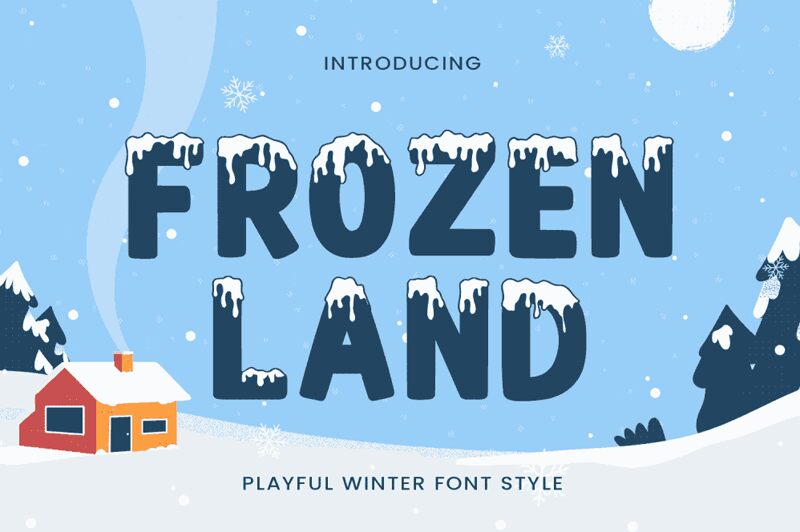
FROZENLAND Regular
Frozenland font by Mozatype is a free decorative display typeface that looks like it’s been carved from black ice and capped with thick, melting snow. Each letter is bold, rounded, and topped with drippy, irregular frost, giving your titles a chilly, cartoonish energy that feels straight out of a winter carnival or cozy holiday special. The forms are compact and hefty, so even a single word reads like a logo.
Using Frozenland, your winter event posters, Christmas cards, kids’ party invites, seasonal product packaging, game titles, and YouTube thumbnails instantly feel colder and more playful. This free font thrives at large sizes where the snowy detail can really shine; pair it with a simple sans serif for supporting text to keep everything legible and let Frozenland handle the icy headline drama.